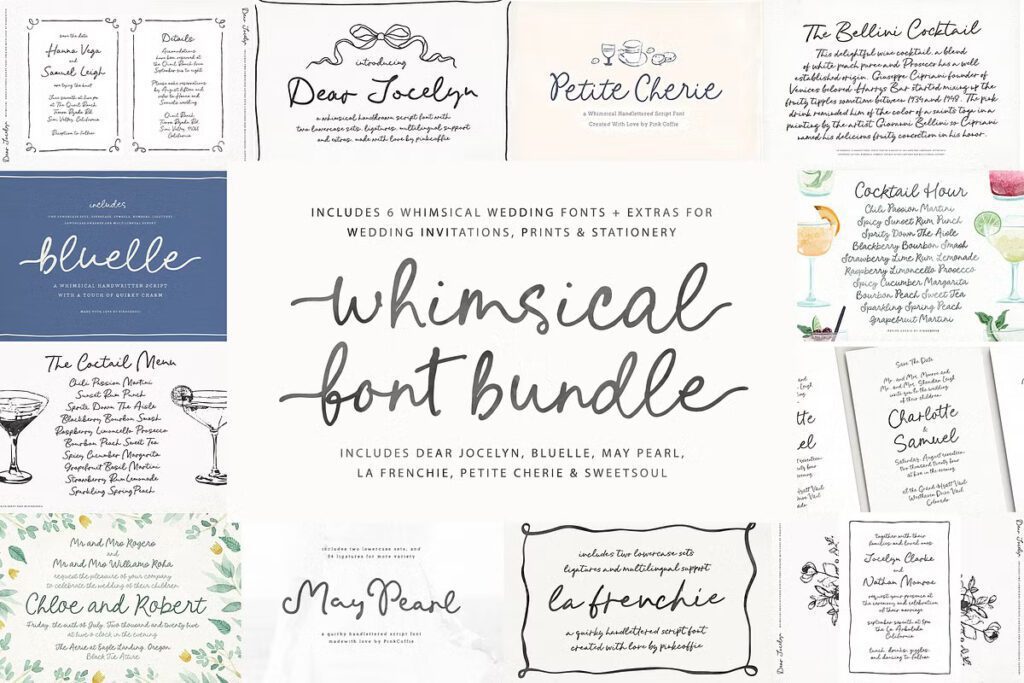
Add a Touch of Whimsy to Your Wedding Designs with the Whimsical Wedding Script Font Bundle
Whimsical Wedding Script Font Bundle is a curated collection of six stunning fonts, perfect for wedding stationery, invitations, and more. This bundle, designed by PinkCoffie, offers a delightful mix of whimsical handwritten scripts and a charming hand-lettered typewriter serif, providing everything you need to add a personal, artistic touch to your wedding designs.
Why the Whimsical Wedding Script Font Bundle is a Must-Have
1. Six Unique Fonts in One Bundle This bundle includes five trendy handwritten script fonts—La Frenchie, Dear Jocelyn, Petite Cherie, Bluelle, and May Pearl—alongside the classic Sweetsoul serif font. Each font has its own unique flair, allowing you to mix and match to create stunning designs that capture the essence of your special day.
2. Perfect for Wedding Stationery Whether you’re designing invitations, save-the-dates, or wedding menus, this font bundle offers the perfect combination of elegance and whimsy. The handwritten scripts are ideal for adding a personal touch, while the serif font provides a classic, timeless appeal.
Perfect For:
Wedding Stationery Designers: Create beautiful, cohesive wedding suites with a mix of whimsical and classic fonts.
Graphic Designers: Add these versatile fonts to your toolkit for use in various creative projects.
Small Business Owners: Elevate your branding, packaging, and social media presence with these charming fonts.
DIY Enthusiasts: Whether you’re crafting wedding decorations or personal projects, this bundle provides the perfect fonts for any occasion.